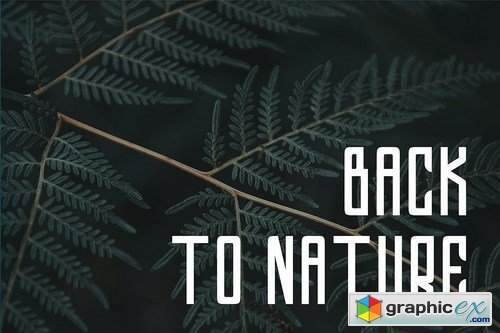
Glinde
Glinde is a bold ligature serif font. A contrast display typeface with extra ligature glyph. Multilingual support, with uppercase, lowercase, numbers and punctuation. Let's ignite your next project with Glinde!